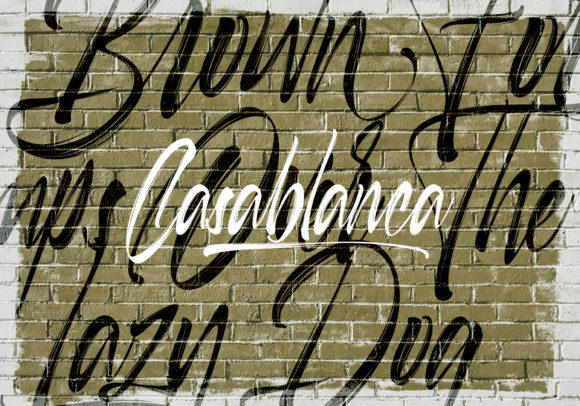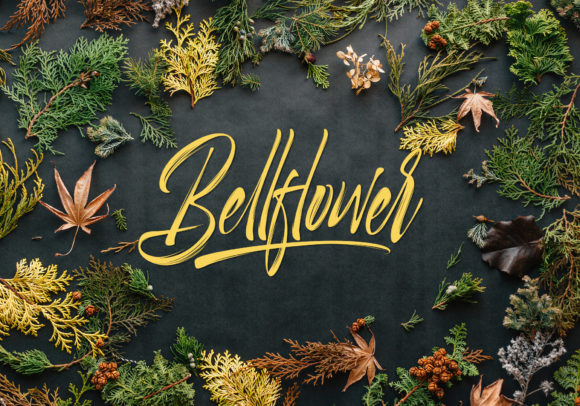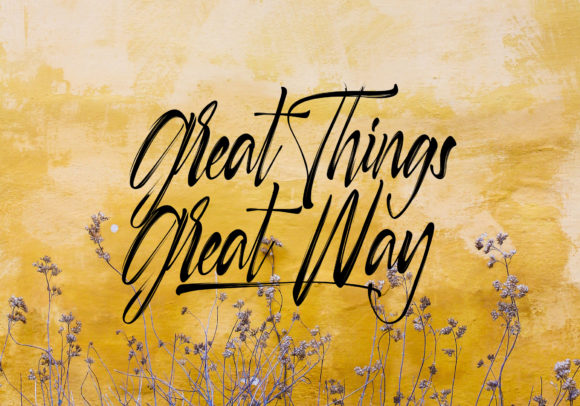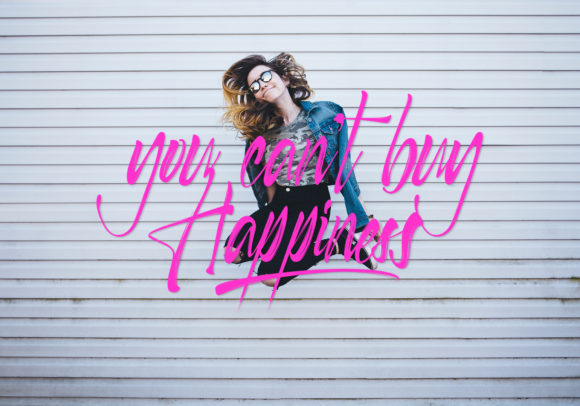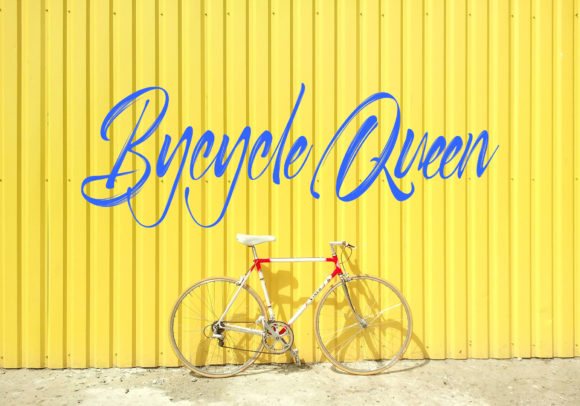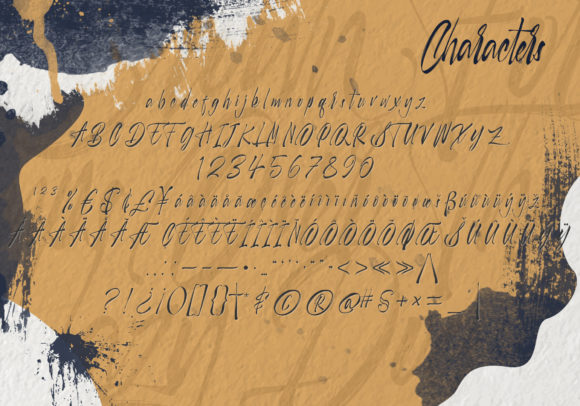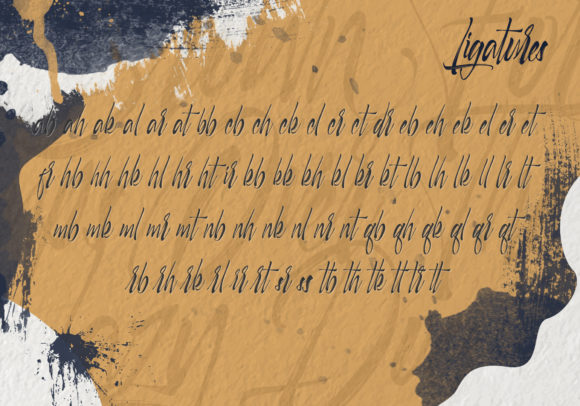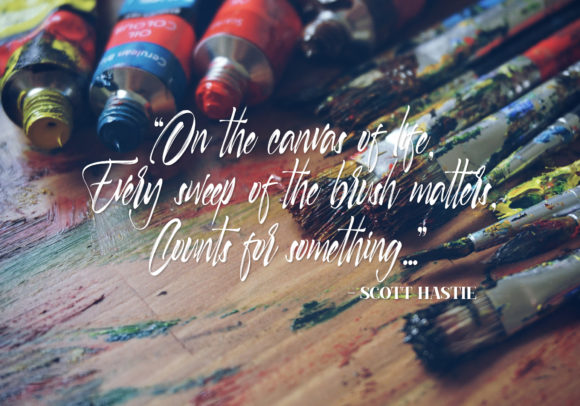
Selfakia Font
Selfakia is a bold and powerful script with an authentic twist. Use this magnificent typeface to turn any design idea into a piece of art.